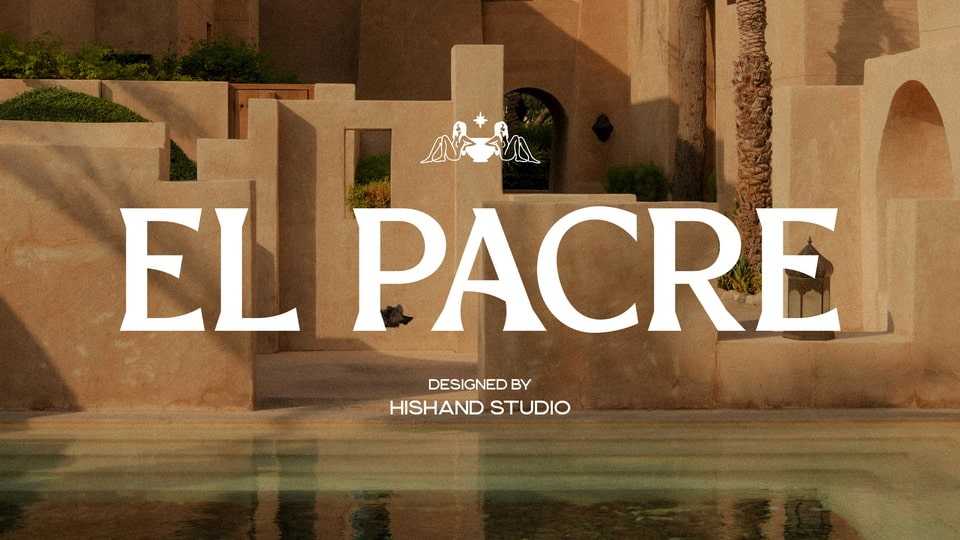
Download El Pacre font, a bold and aesthetic display serif typeface that embodies luxury and timeless sophistication. With its elegant letterforms and confident presence, it’s designed to make a powerful statement in every project.